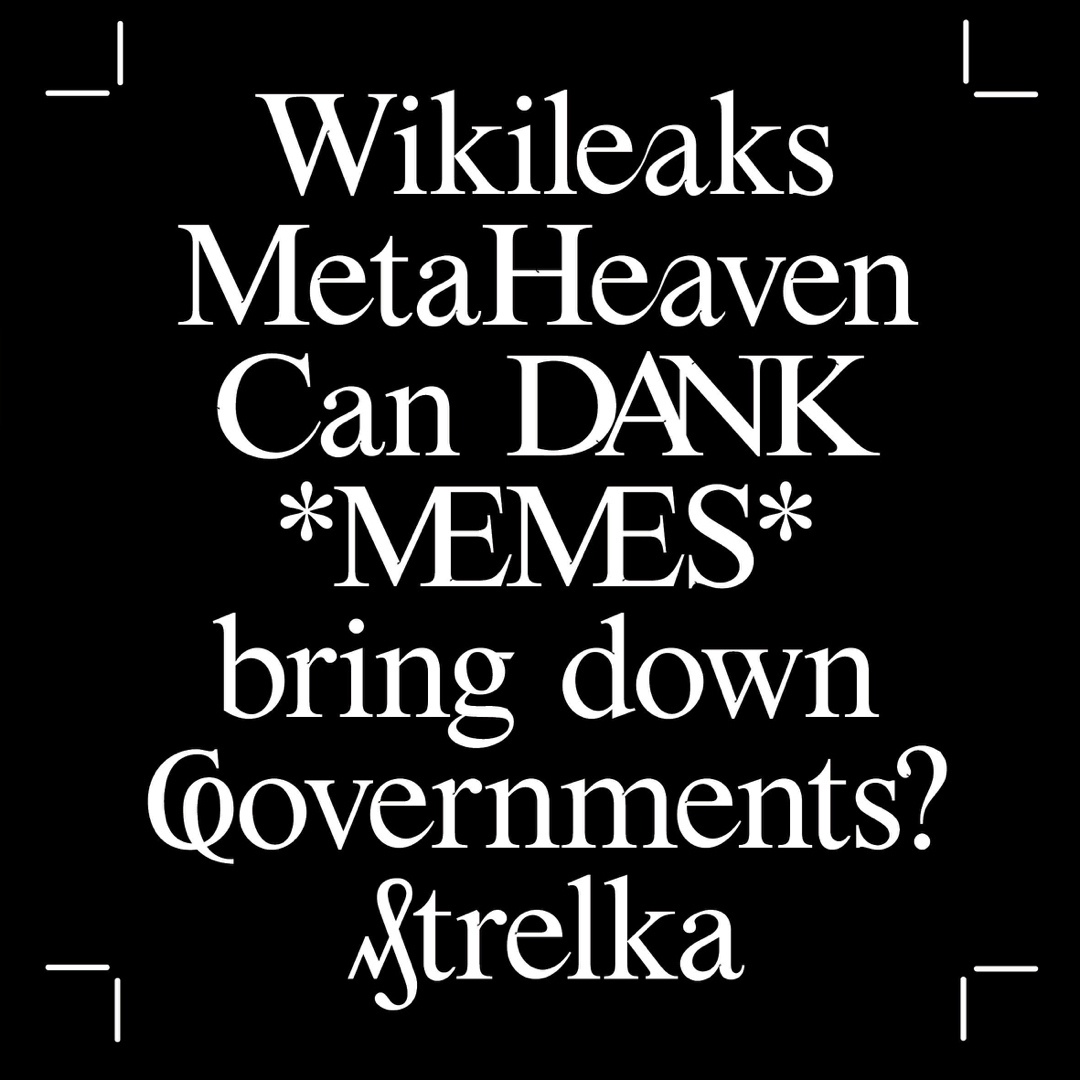
Sneaky Times Font
Sneaky Times Font is perfect for mystery-themed branding, detective agency communications, spy thriller book covers, espionage entertainment marketing, secret society materials, clandestine event invitations, covert operation graphics, and intriguing advertising campaigns. This mysterious typeface works exceptionally well in both digital applications and print media where stealth and mysterious intrigue are essential design elements.
What makes Sneaky Times Font so exciting is its subtle interpretation of covert operations and secretive intelligence through cleverly disguised letterforms that seem crafted with the same careful discretion and hidden sophistication that defines professional espionage and clandestine activities. The font features stealthy characters with covert proportions, secretive curves, and mysterious details that communicate intelligence, discretion, and the fascinating world of hidden operations conducted in the shadows of everyday life. Its enigmatic personality and espionage heritage make it ideal for entertainment brands seeking to create intrigue while appealing to audiences fascinated by the secretive world of spies, detectives, and mysterious investigations.
The Sneaky Times Font family includes multiple weight variations with different stealth levels, along with covert alternates and mysterious ornamental elements. Each style maintains the typeface's secretive character while offering comprehensive character sets including clandestine numerals, spy-inspired punctuation marks, and special symbols designed to enhance mysterious communications and covert branding efforts across various intriguing contexts.
This remarkable typeface represents the perfect fusion of espionage aesthetics and contemporary typography for entertainment and mystery industries. Whether you're developing detective agency identities, creating mystery entertainment materials, or designing spy-themed promotional campaigns, Sneaky Times Font Free Download provides the mysterious sophistication and versatility needed to captivate intrigue-loving audiences. The font's covert appeal makes it particularly effective for mystery writers, detective services, escape room experiences, and businesses creating entertainment that celebrates the fascinating world of secret operations and mysterious investigations.
The meticulously crafted mysterious details and optimized covert performance in Sneaky Times Font ensure both secretive authenticity and clear communication across all mysterious applications. Its enigmatic presence makes it perfect for mysterious branding, covert marketing materials, and intriguing communications where its full sneaky character can create lasting fascination and connections with audiences who appreciate the intelligence, sophistication, and thrilling mystery of the secretive world of espionage and detective work.